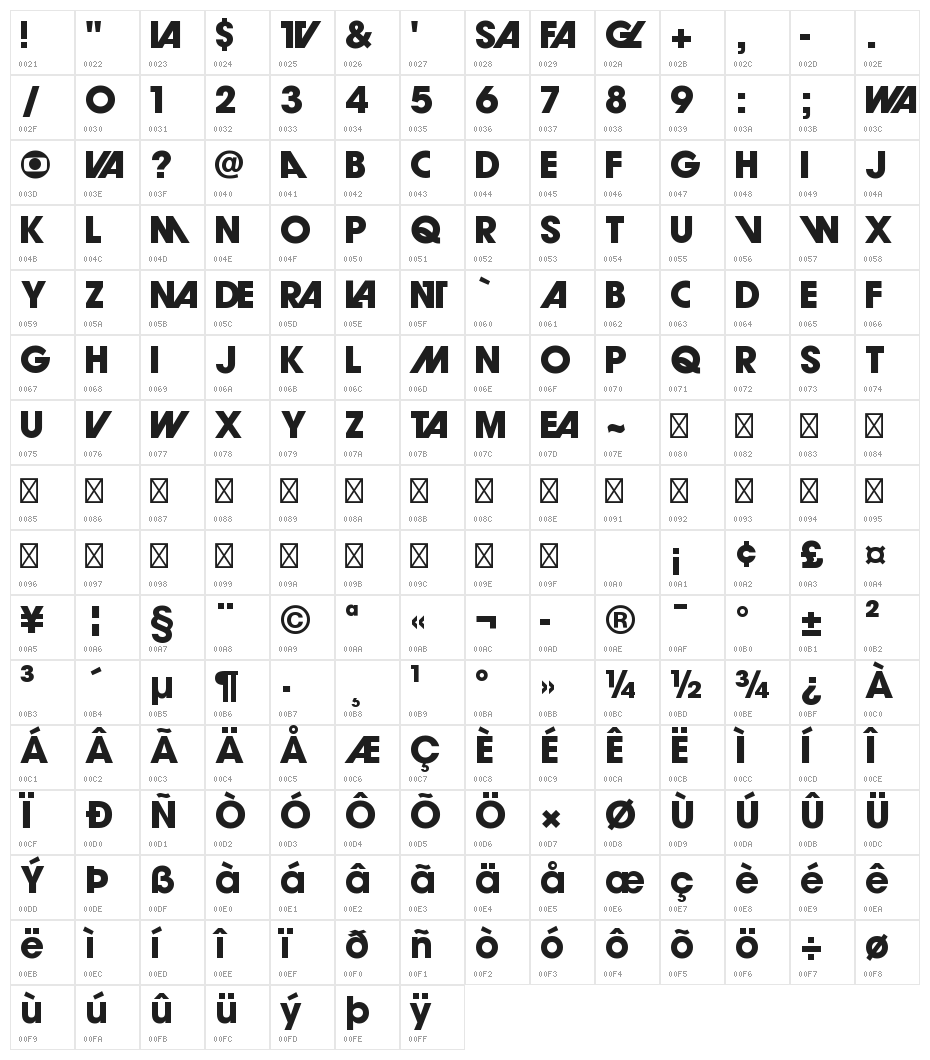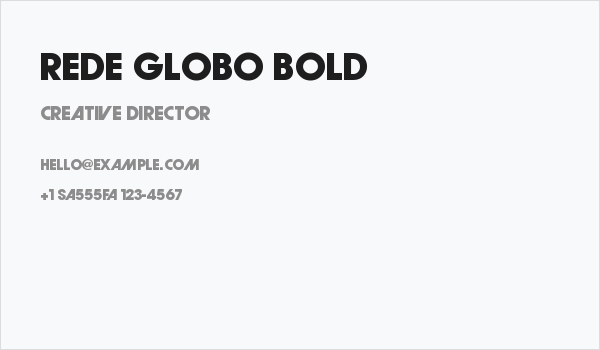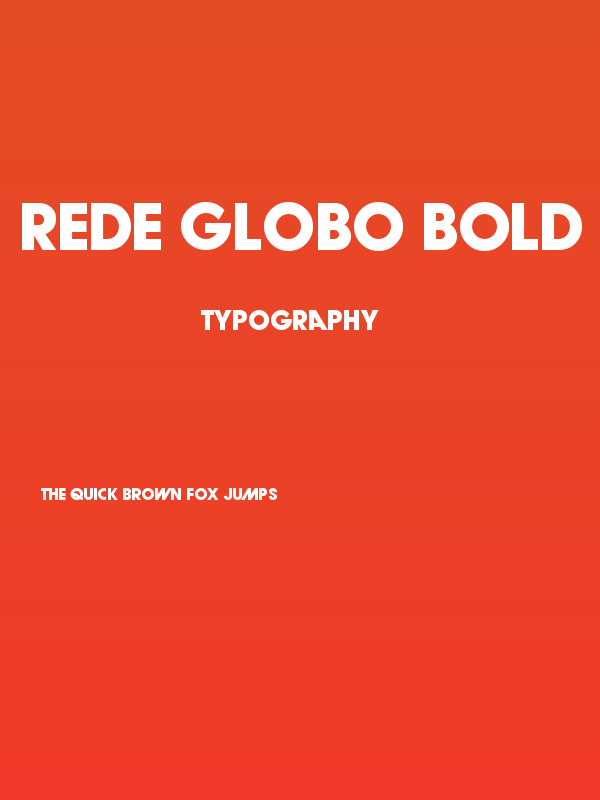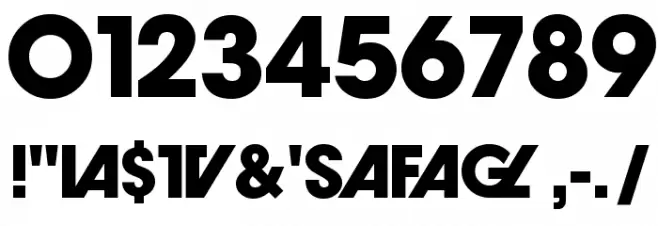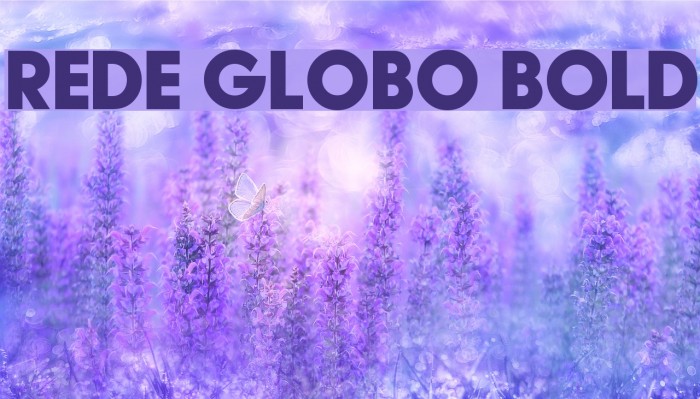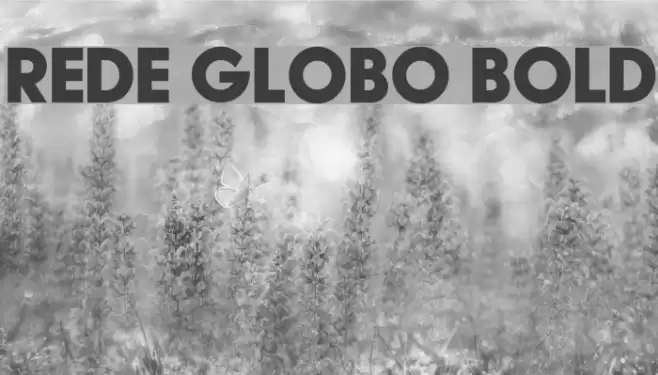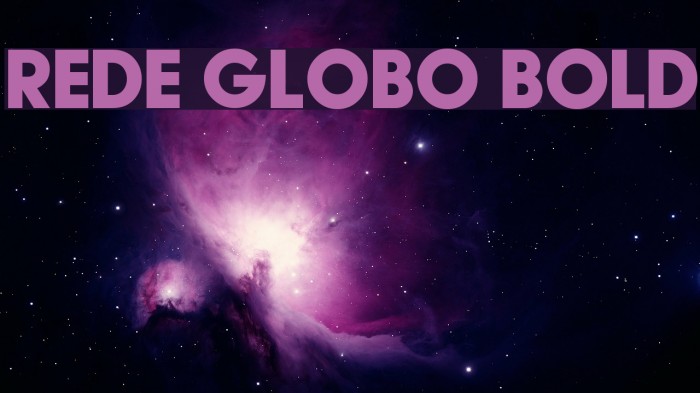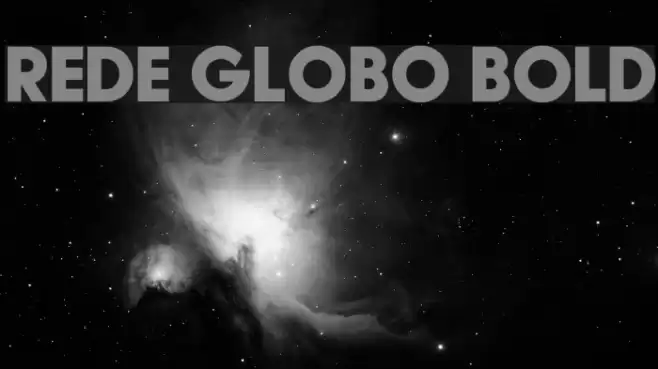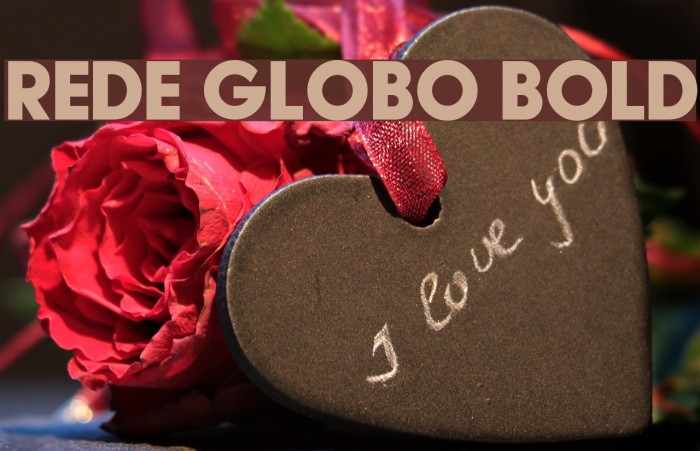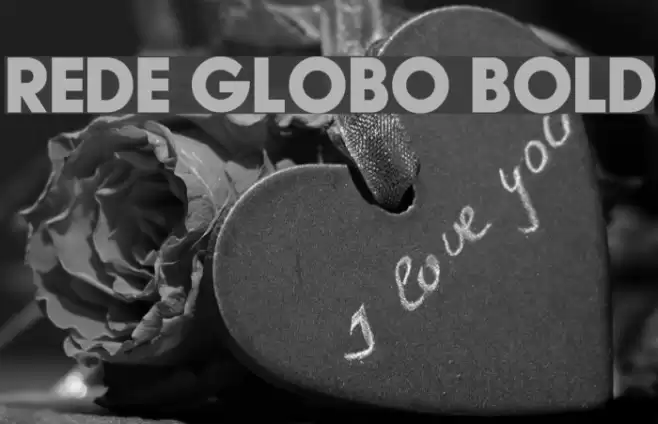
Rede Globo Bold Font
Rede Globo Bold Description
This bold, geometric font features strong, angular lines and a modern aesthetic. The uppercase letters are characterized by their uniform height and width, creating a cohesive and balanced appearance. The numerals are similarly bold, with a consistent stroke weight that enhances readability. Special characters maintain the same boldness, ensuring they stand out effectively. The overall design is clean and impactful, making it suitable for attention-grabbing headlines and logos. Its geometric nature gives it a contemporary feel, while the boldness adds a sense of authority and presence.
| Proposed Projects | Ideal for branding, advertising, headlines, and logo design projects. |